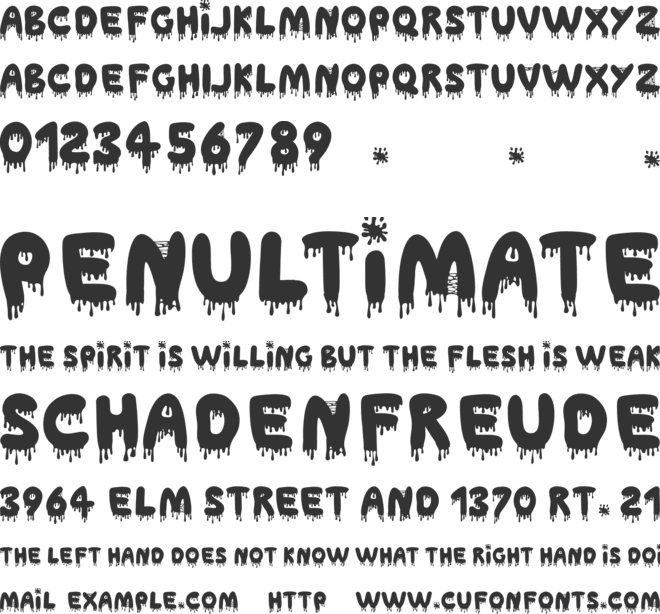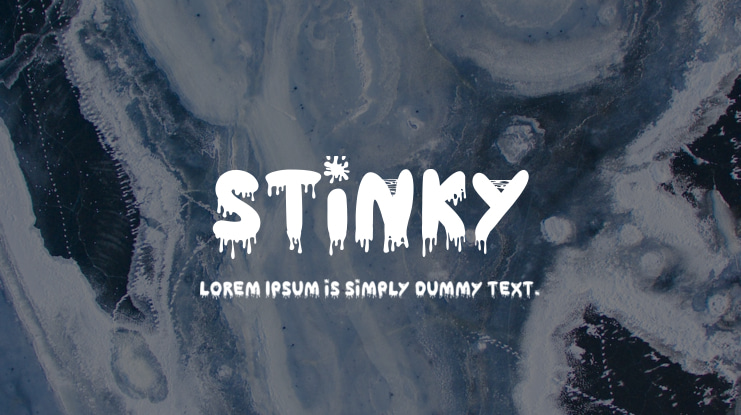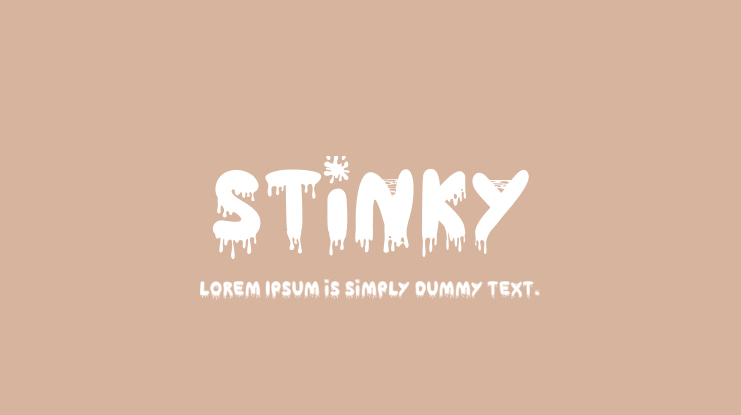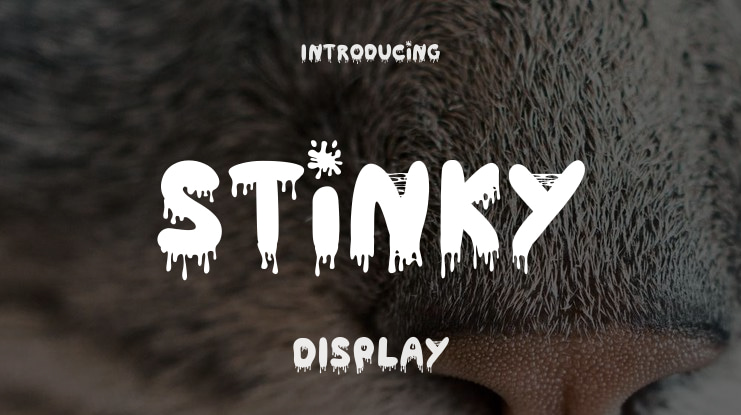
stinky Font
This hand-drawn, Halloween-themed font is designed with a distinctly stinky visual flair, drawing inspiration from dripping blood, goop, and slime. It includes uppercase and lowercase letters, numbers, and a limited range of punctuation marks.